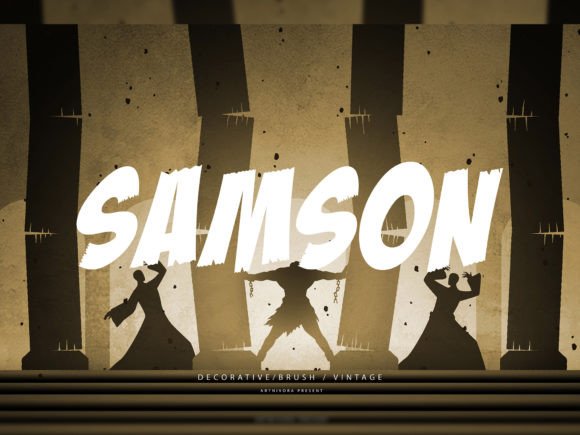
Behold, the Samson Font: A Stroke of Art, a Symphony of Style
In a world where individuality and expression reign supreme, the Samson Font emerges as a beacon of creativity, a font family that captivates the senses and ignites the imagination. With its bold strokes and playful demeanor, Samson is the perfect companion for those seeking to make a statement, to leave an imprint on the world through the power of words.
Tailored with precision and crafted with the utmost attention to detail, Samson's display font is a symphony of style, a harmonious blend of classic and contemporary elements. Its dynamic curves and sharp angles create a visual spectacle, drawing the eye to your creations and ensuring that your message is heard loud and clear.
Whether you're an artist yearning to paint your thoughts onto the canvas of the digital world, a designer seeking to breathe life into your projects, or a social media enthusiast eager to make your posts pop, Samson is the font that will elevate your work to new heights. With its innate versatility, it seamlessly adapts to a myriad of applications, from logo designs that command attention to magazine layouts that exude sophistication.
Step into the world of Samson and discover a font family that is not just a tool, but an extension of your creativity, a reflection of your unique style. Let Samson be your muse, your guiding light as you embark on a journey of visual storytelling, crafting designs that leave a lasting impression.
From the bold headlines that demand attention to the delicate details that whisper elegance, Samson is your trusted companion, enhancing your words and amplifying their impact. Its carefully crafted glyphs dance across the screen, painting pictures that speak to the heart and ignite the imagination.
So, embrace the power of Samson, let its bold strokes ignite your creativity, and watch as your designs blossom into masterpieces that capture the essence of your vision. Unleash the limitless possibilities that await you and leave your mark on the world, one beautiful creation at a time.